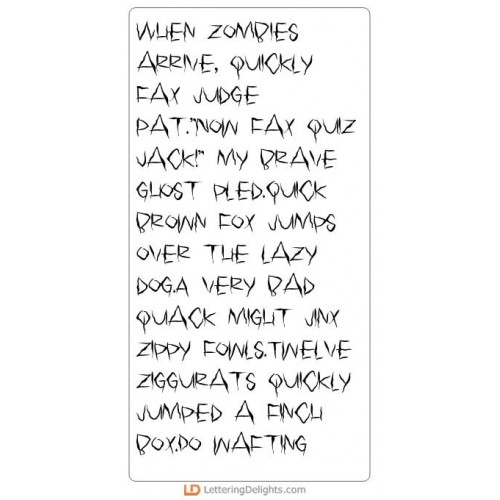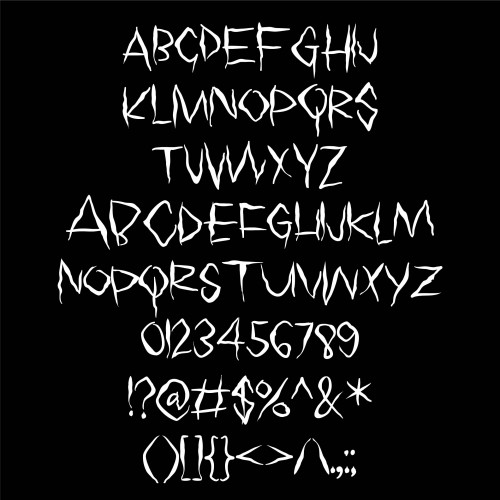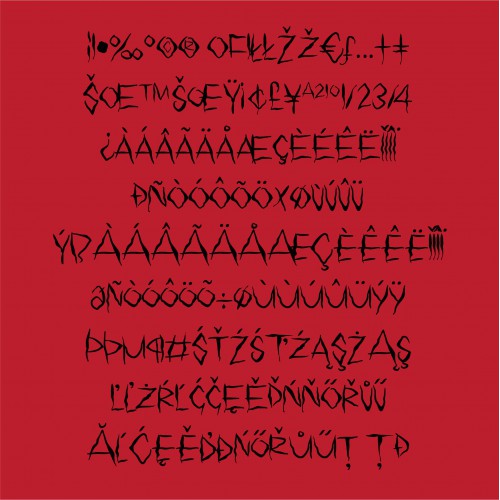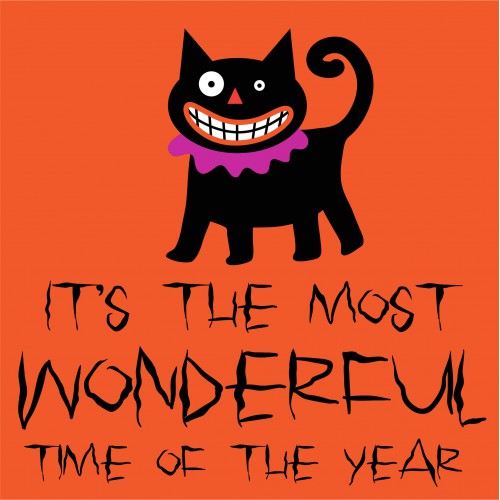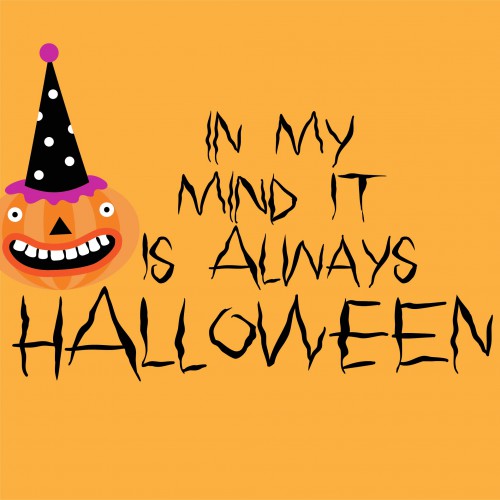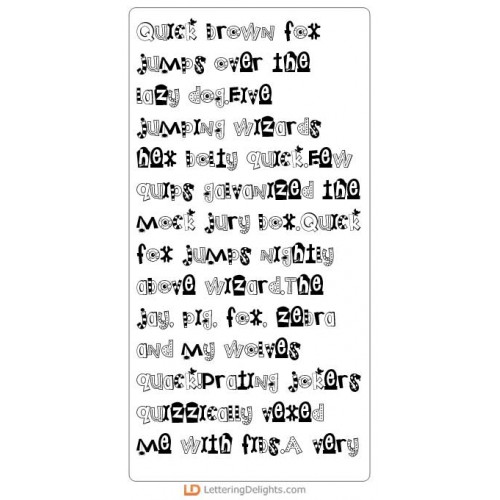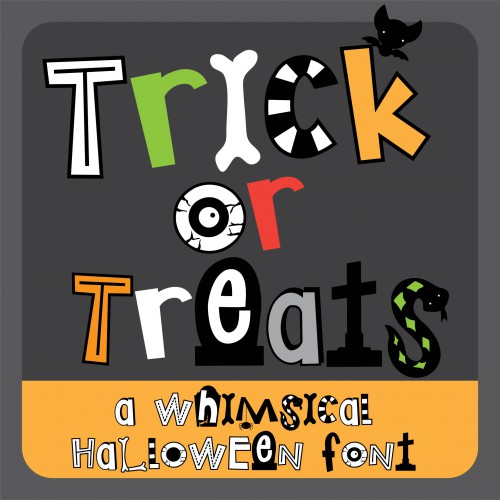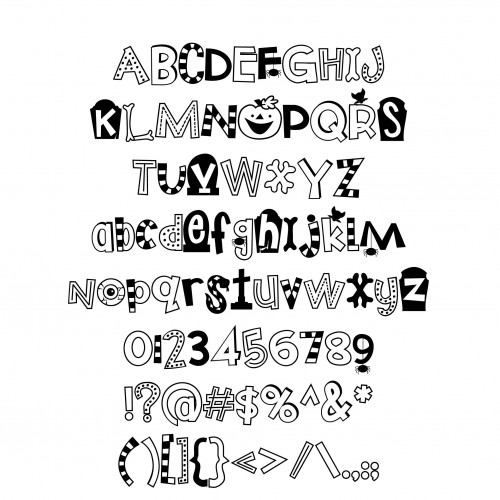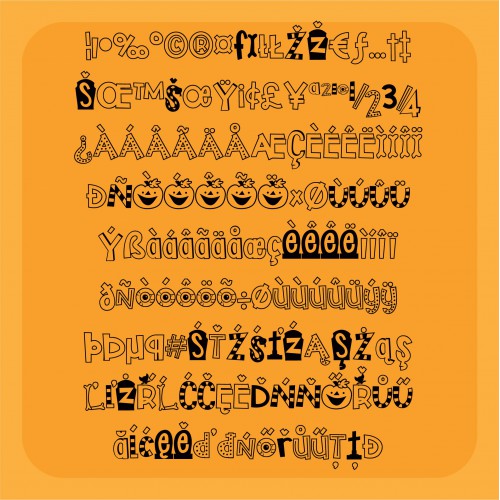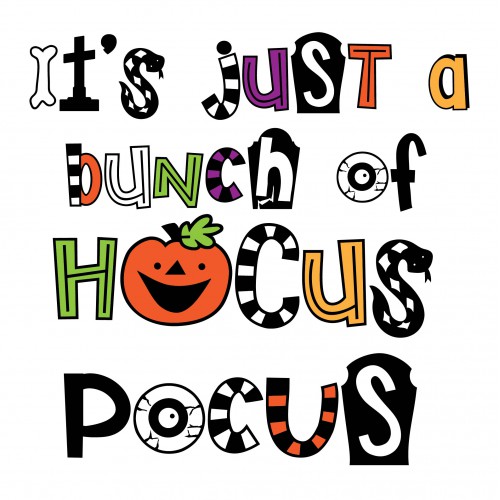
All Hallows Eve  - Font Bundle
ZP Quit - FN
This scary font looks a lot like the font used on a famous Halloween book and movie...
PN Trick or Treats - FN
This adorable, hand-crafted, illustrated font features several patterns/styles and a few illustrated..
ZP Hughes Horror - FN
This wide, drippy font is a just a little scary with its drips and horror...
ZP Hobgobbies - FN
This beautiful serif font has big flourishes on the uppercase with most of the font decorated in web..
PN Macabre Millionaire - FN
This beautiful serif font has big flourishes on the uppercase with most of the font decorated in web..
ZP Witchy Legs - FN
This serif font is an all-cap font with several pieces of the uppercase replaced with witch legs...
ZP Monsterz - FN
This fun, blocky font features monster eyes poking about all the lettering...
ZP The Dead Awake - FN
This creepy serif font features zombies and tombstones. Mix up both cases as you type to get your mo..
PN Goose Gooey - FN
This gooey font looks like it's oozing. It's a great font for a creepy feel...
ZP Spooksville - FN
This grunge style font has a rough texture and pointy serifs making it a great font for Halloween or..